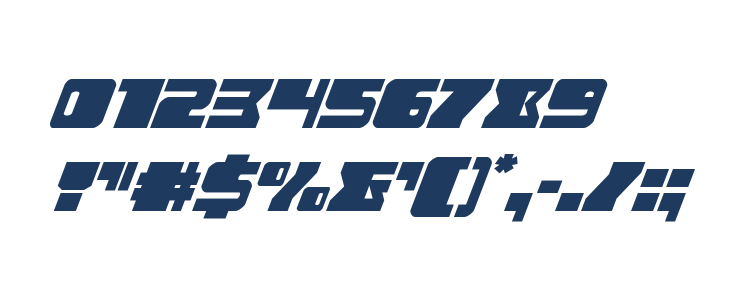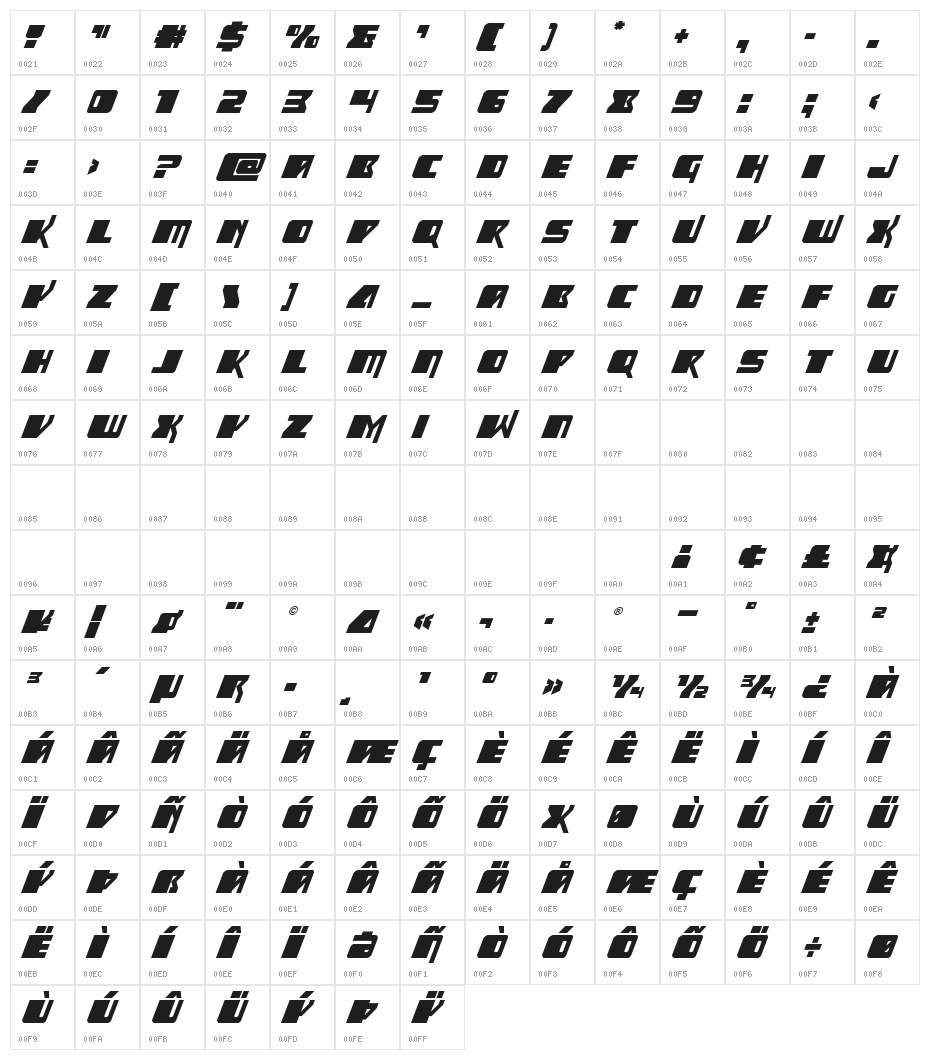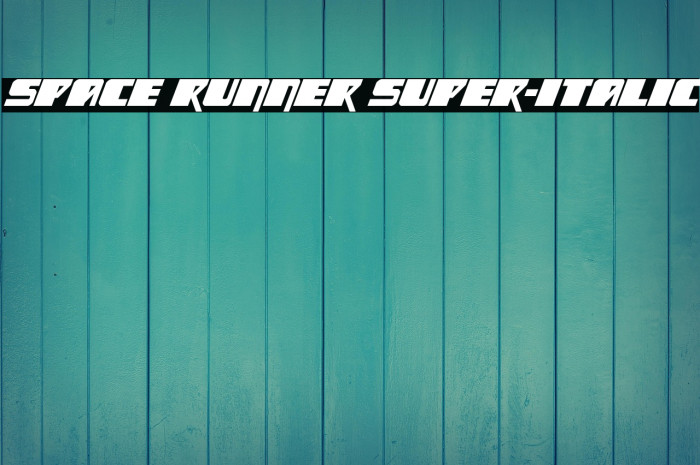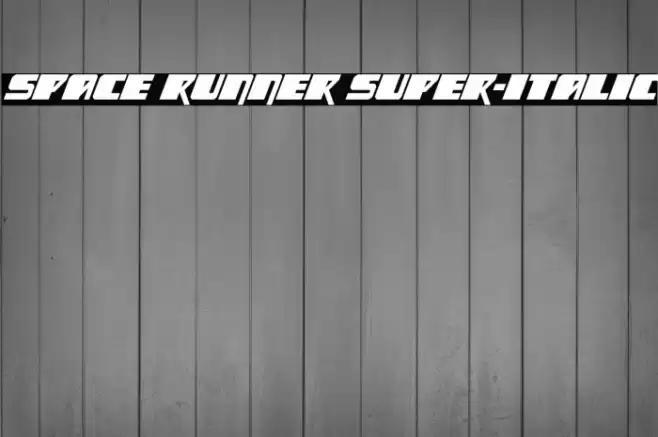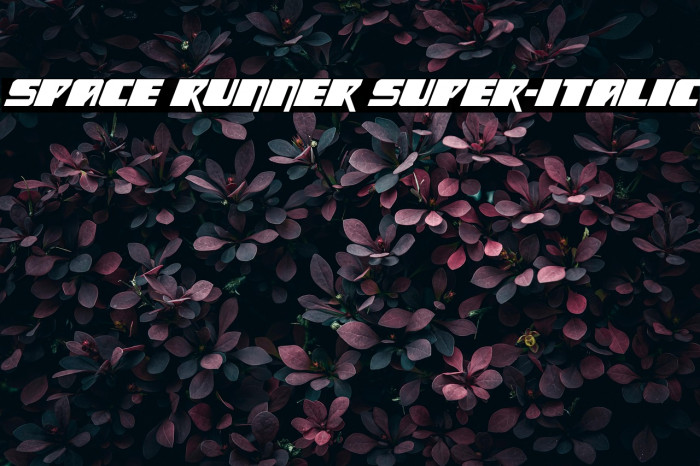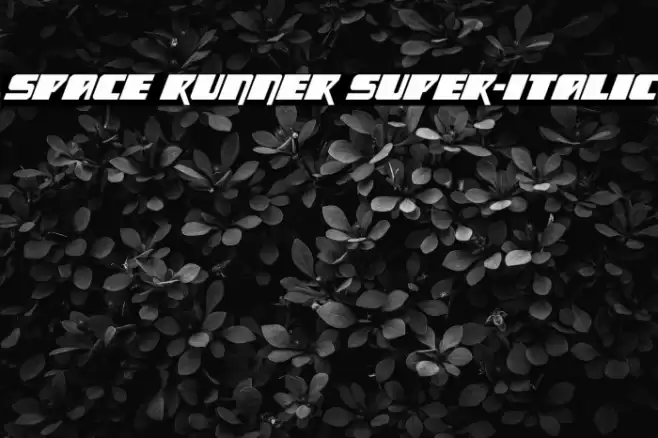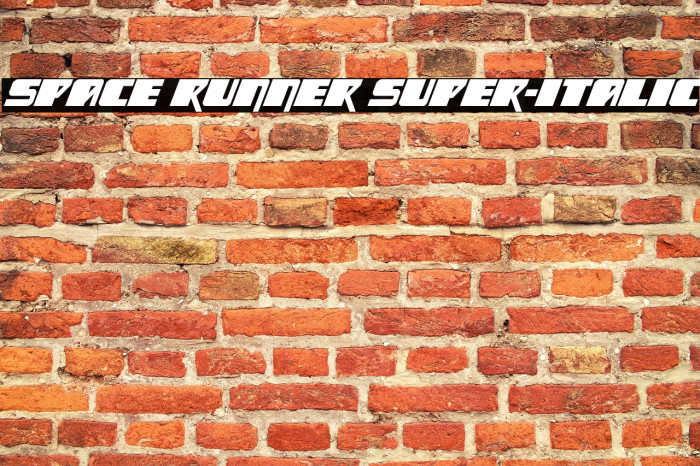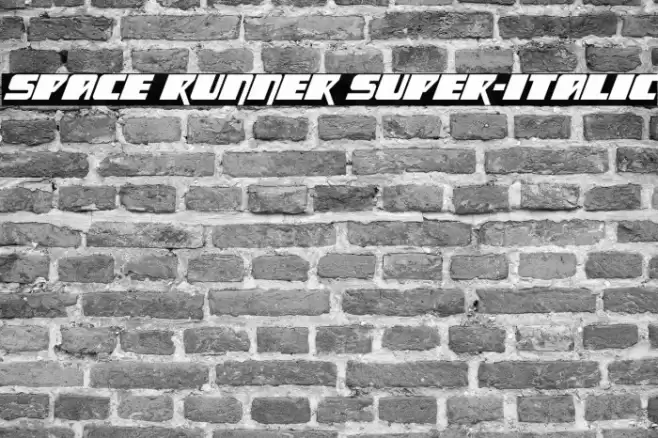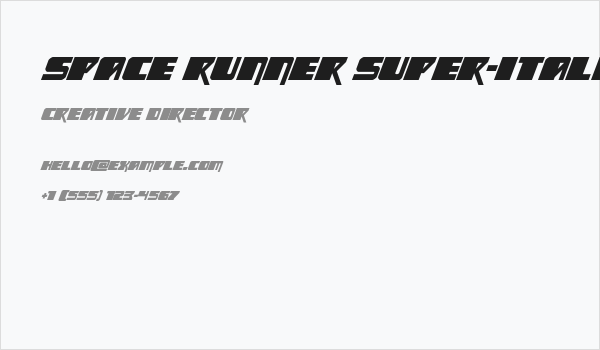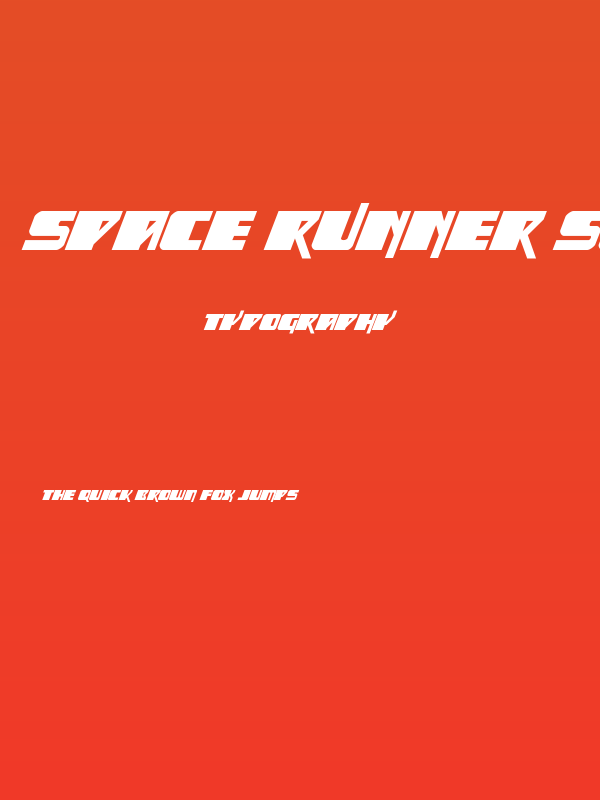
Space Runner Super-Italic Font
Space Runner Super-Italic Description
This font features a futuristic and dynamic design, characterized by its bold and angular letterforms. The italicized style adds a sense of motion and speed, making it ideal for projects that require a modern and energetic look. The uppercase and lowercase letters maintain a consistent slant, enhancing the overall sleek appearance. Numbers and special characters are designed with the same angular and bold characteristics, ensuring uniformity across all glyphs. The font's strong presence and unique style make it suitable for attention-grabbing headlines and logos.
| Proposed Projects | Ideal for sci-fi themed designs, video game titles, tech company logos, and dynamic posters. |